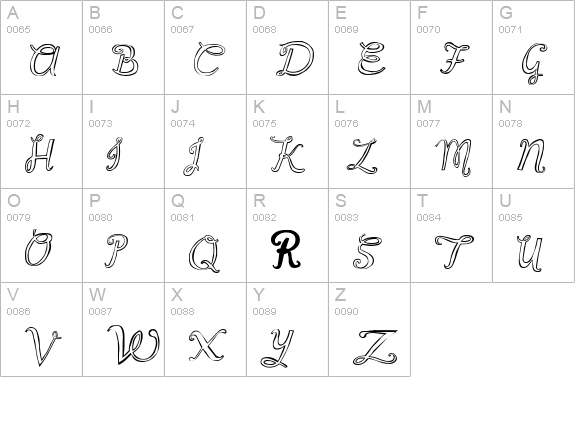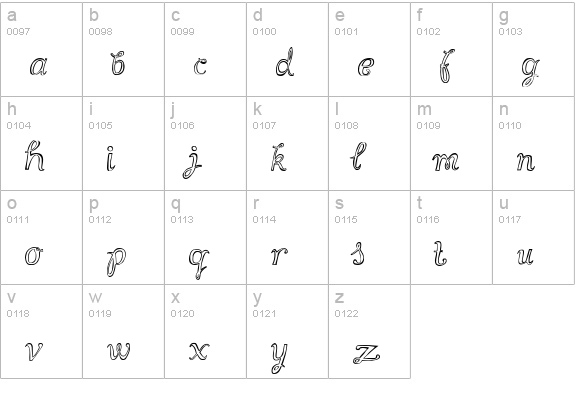
Scrapt Font Details
Introducing Scrapt, a stunningly versatile and unique font that effortlessly blends vintage charm with modern simplicity. This delightful typeface is perfect for adding a touch of nostalgia to your designs while maintaining a contemporary edge. With its carefully crafted letterforms and exquisite details, Scrapt captures the essence of hand-drawn artistry, making it an ideal choice for a wide range of projects. Featuring a wide variety of ligatures, alternates, and stylistic sets, Scrapt offers endless possibilities for creative experimentation. Whether you're designing a logo, crafting eye-catching headlines, or creating captivating social media graphics, this font is sure to elevate your work to new heights. But what makes Scrapt even more remarkable is that it is available for free! Yes, you heard it right. This exceptional font can be freely downloaded at FontsMarket.com, where you'll find a vast collection of high-quality fonts to suit every design need. Don't miss out on this incredible opportunity to enhance your projects with Scrapt's distinctive charm and undeniable elegance. So go ahead and unleash your creativity with Scrapt. Download it now and discover the endless possibilities this remarkable font has to offer. Whether you're a seasoned designer or just starting out, Scrapt is here to empower you to create truly remarkable designs that captivate and inspire.